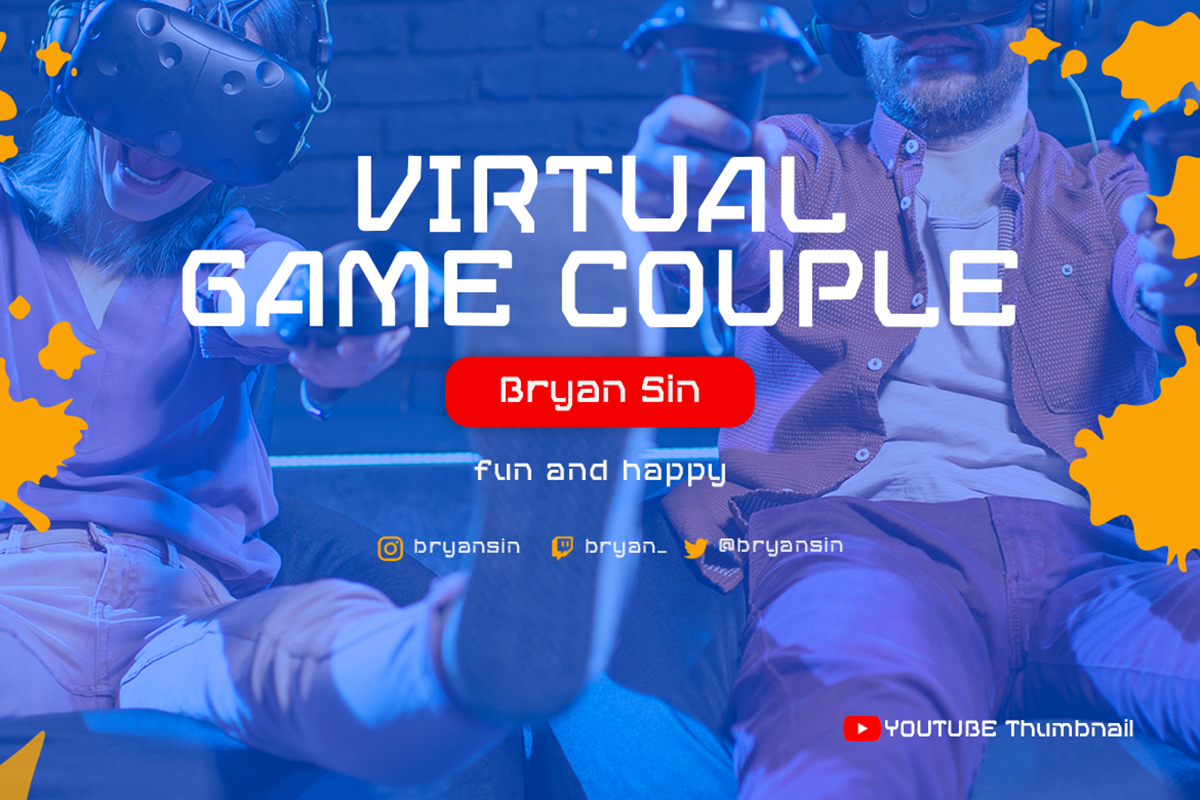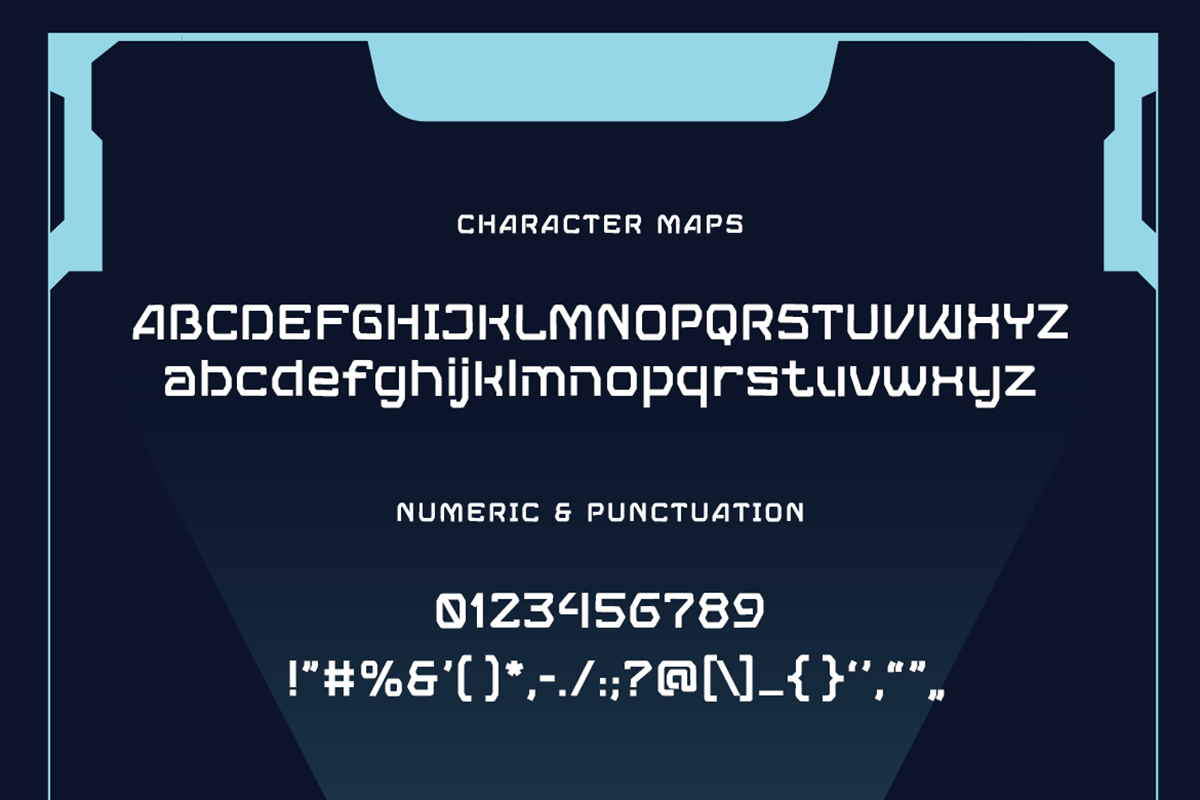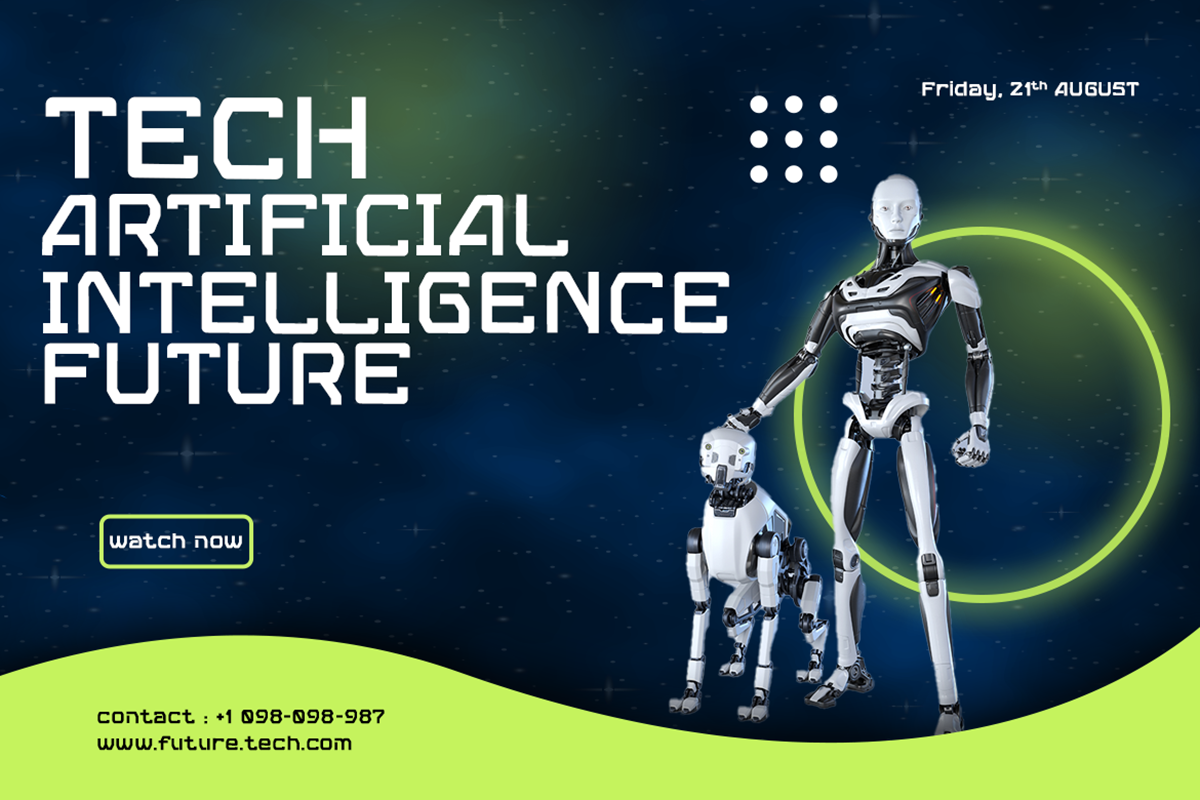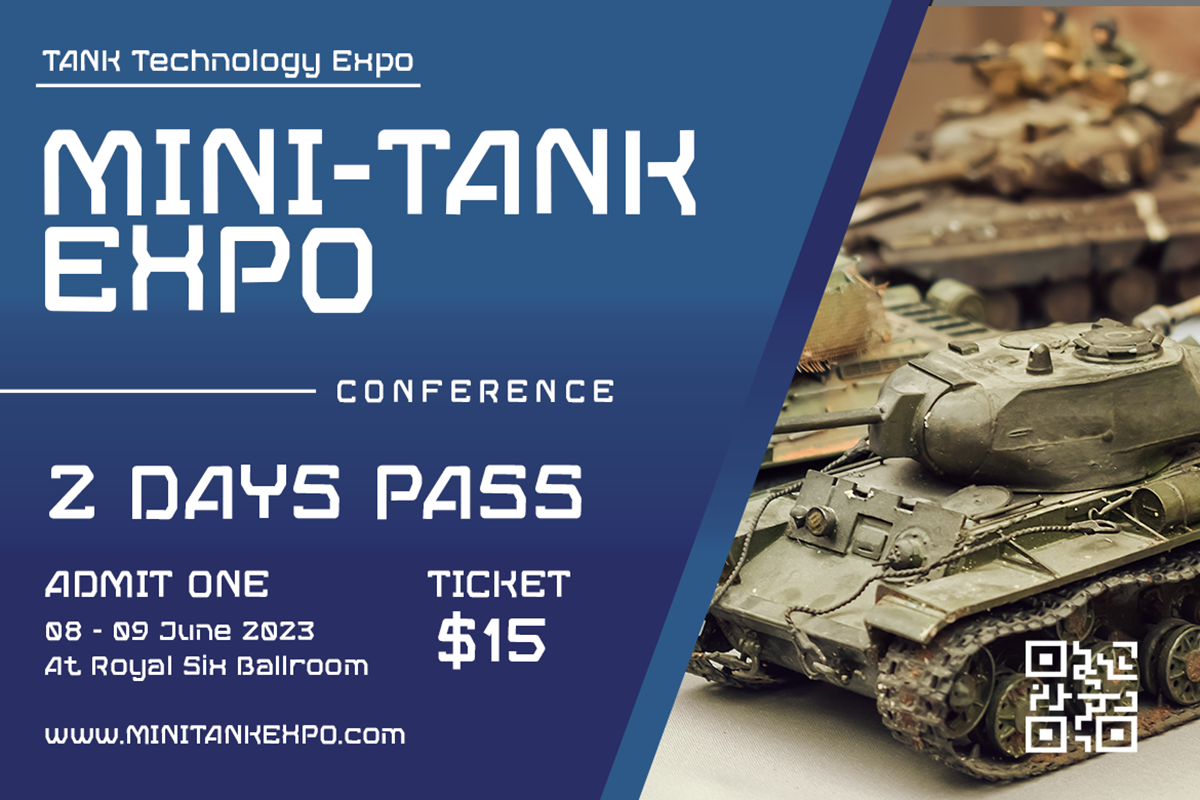
Voyager Free Font
Embark on a journey into the future with Voyager Free Font, an awe-inspiring font inspired by the visual aesthetics of technology. Drawing inspiration from logos, sci-fi movies, games, and modern gadgets, this font captures the essence of innovation. With its minimalist style and distinctive letterforms, Voyager is the perfect choice for logos, labels, posters, packaging, books, movies, presentations, games, and more. Immerse yourself in the captivating allure of Voyager and unlock endless creative possibilities. This free typeface was designed by a talented Pinisiart, If you like it don’t forget to check out the full version.